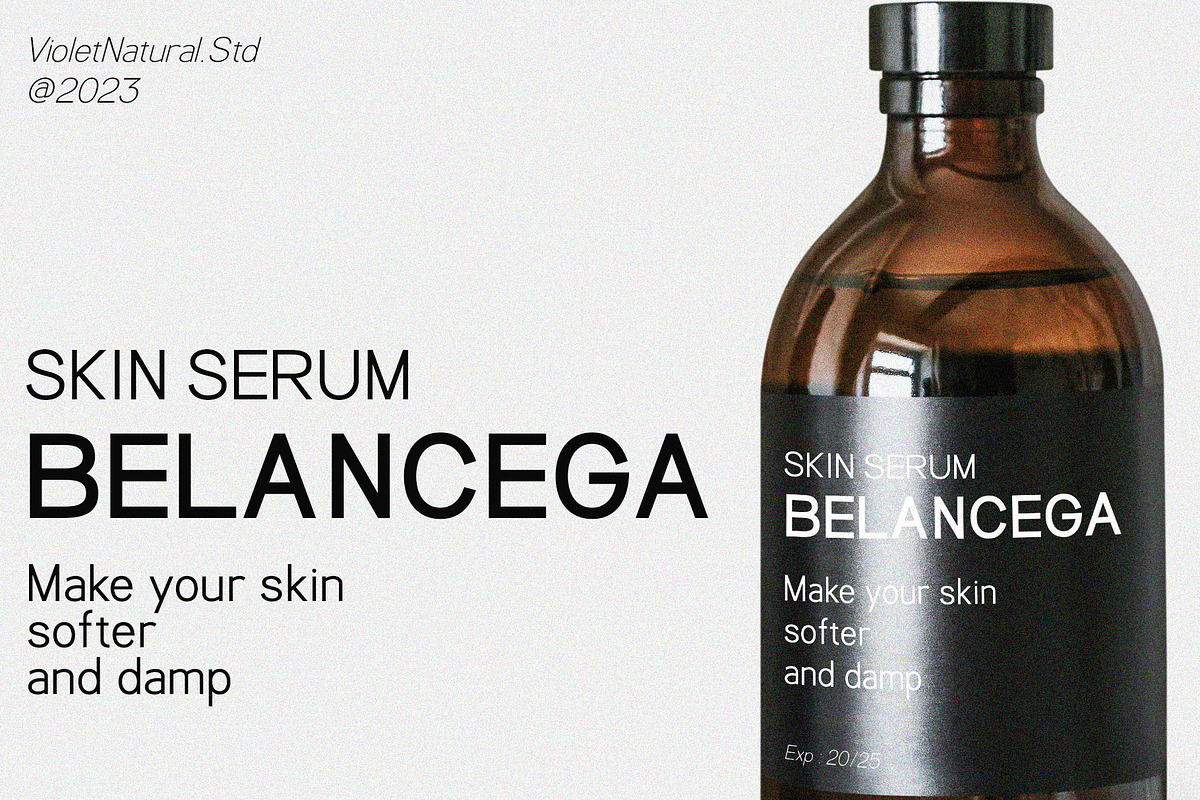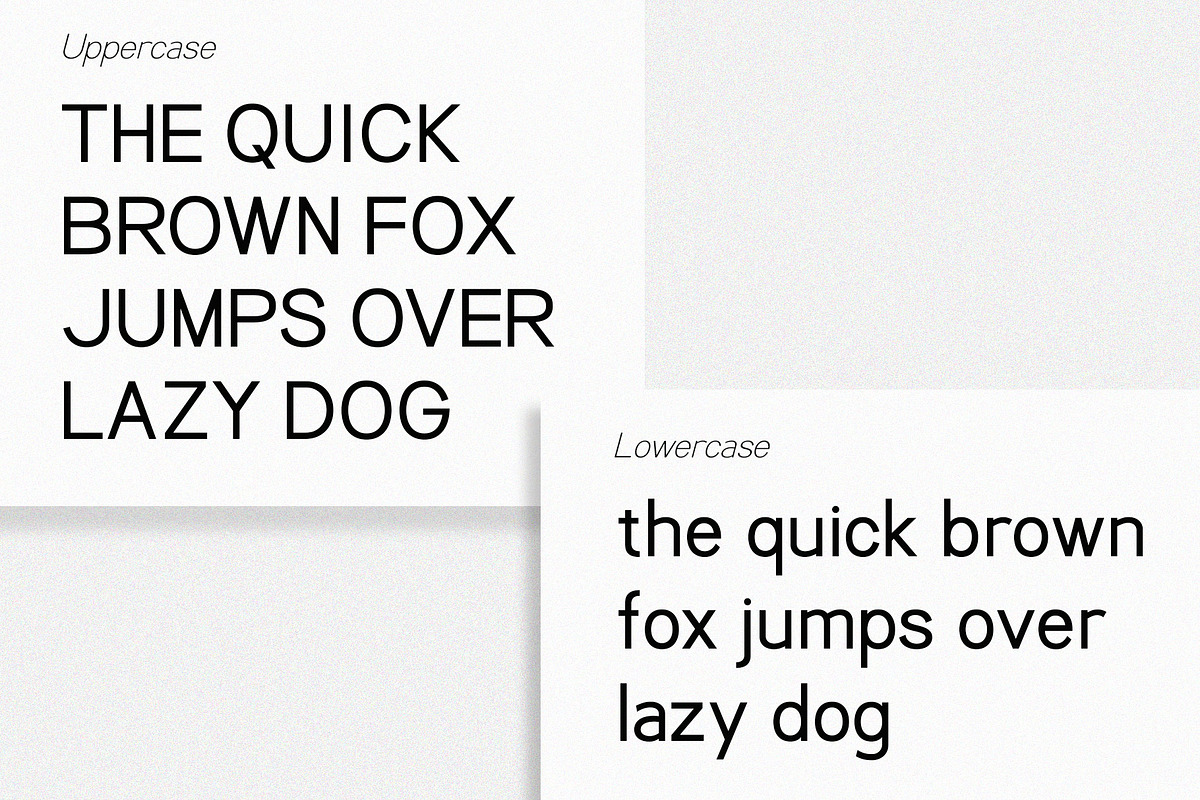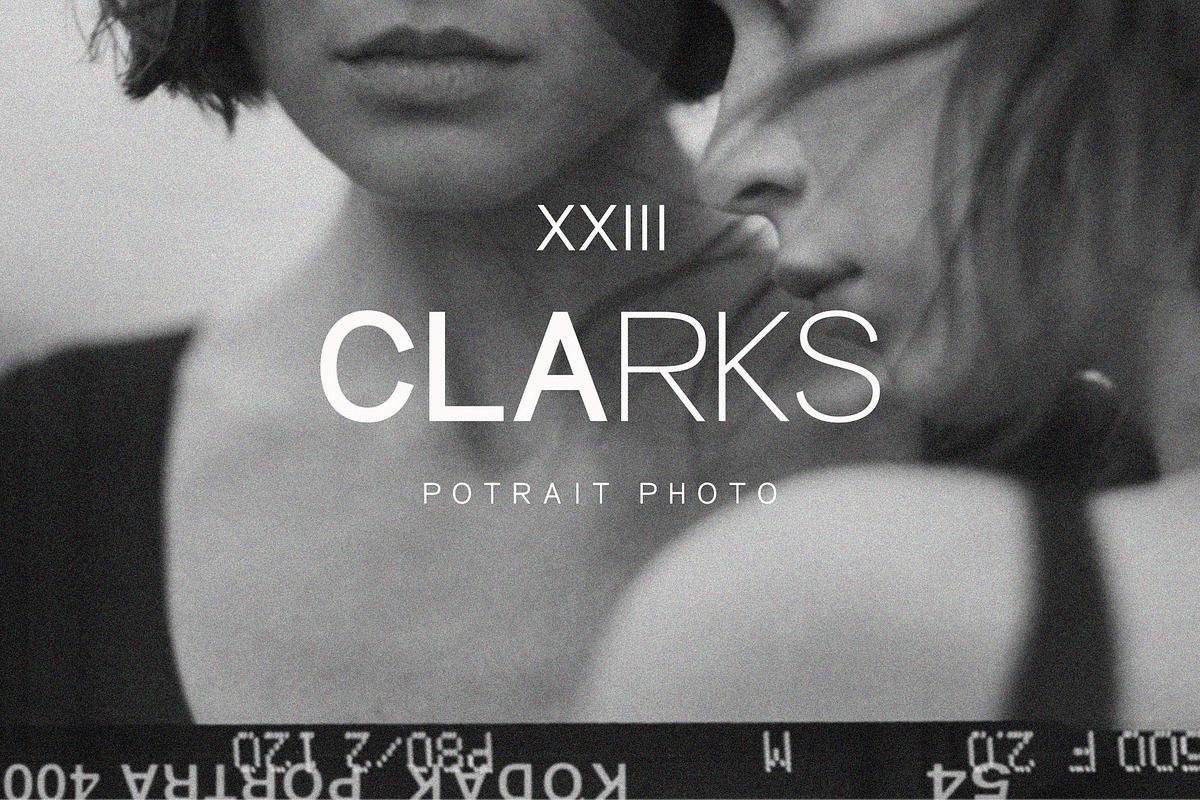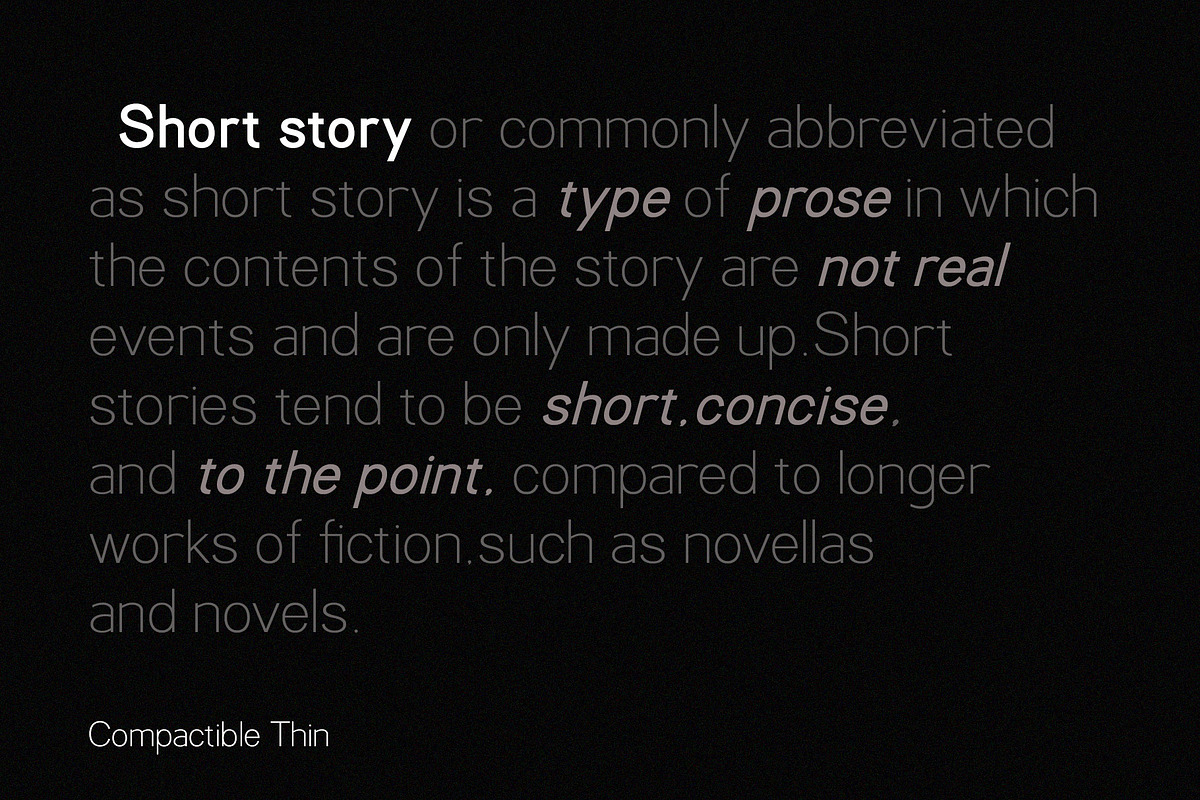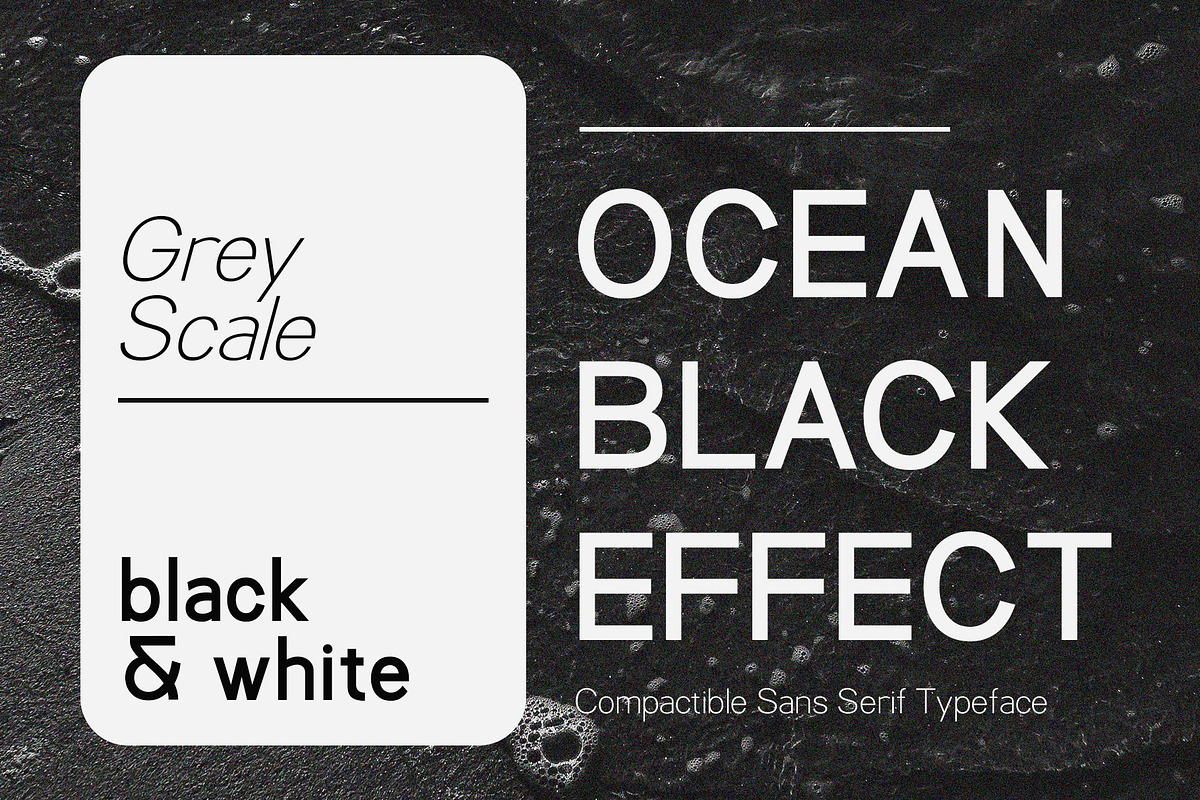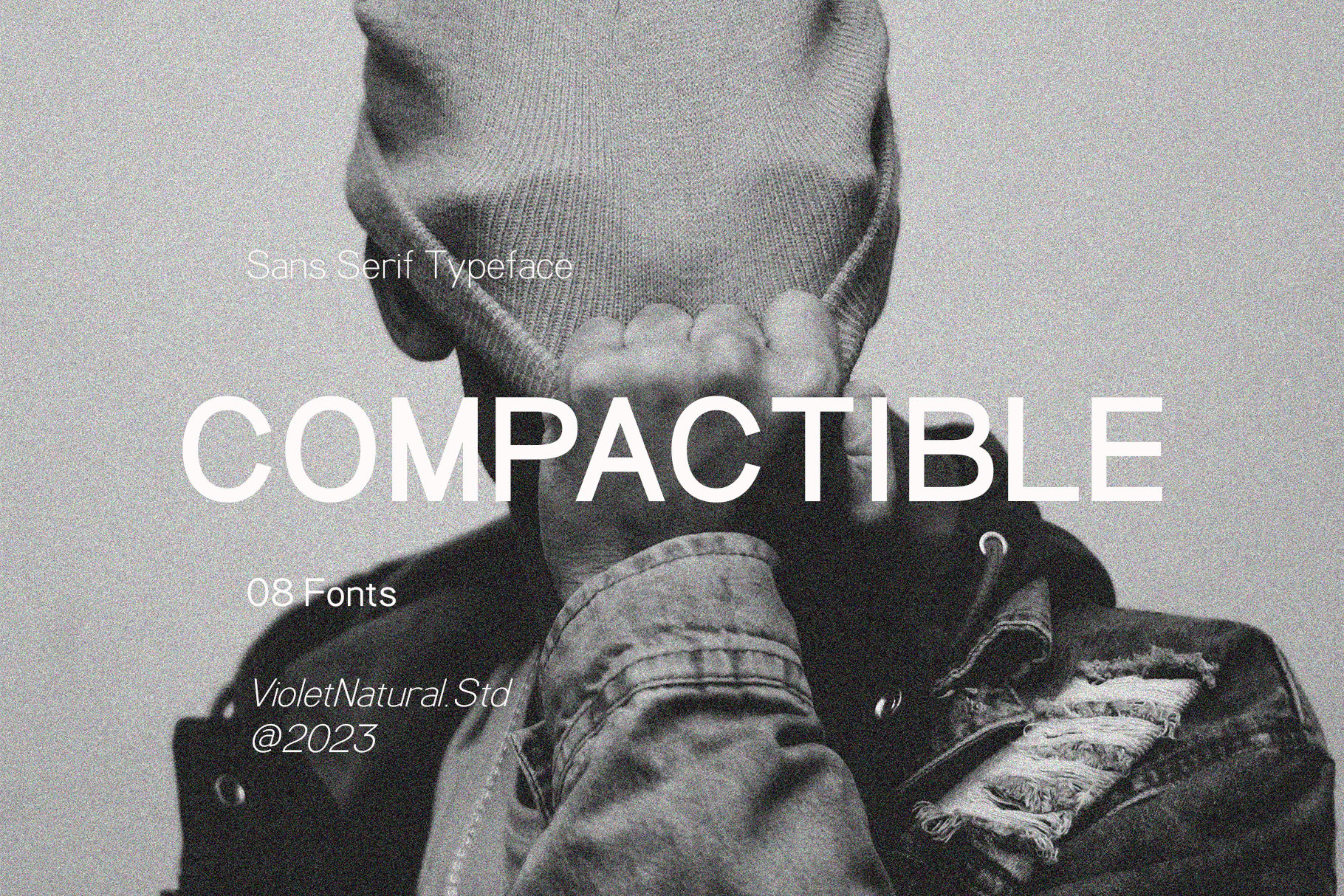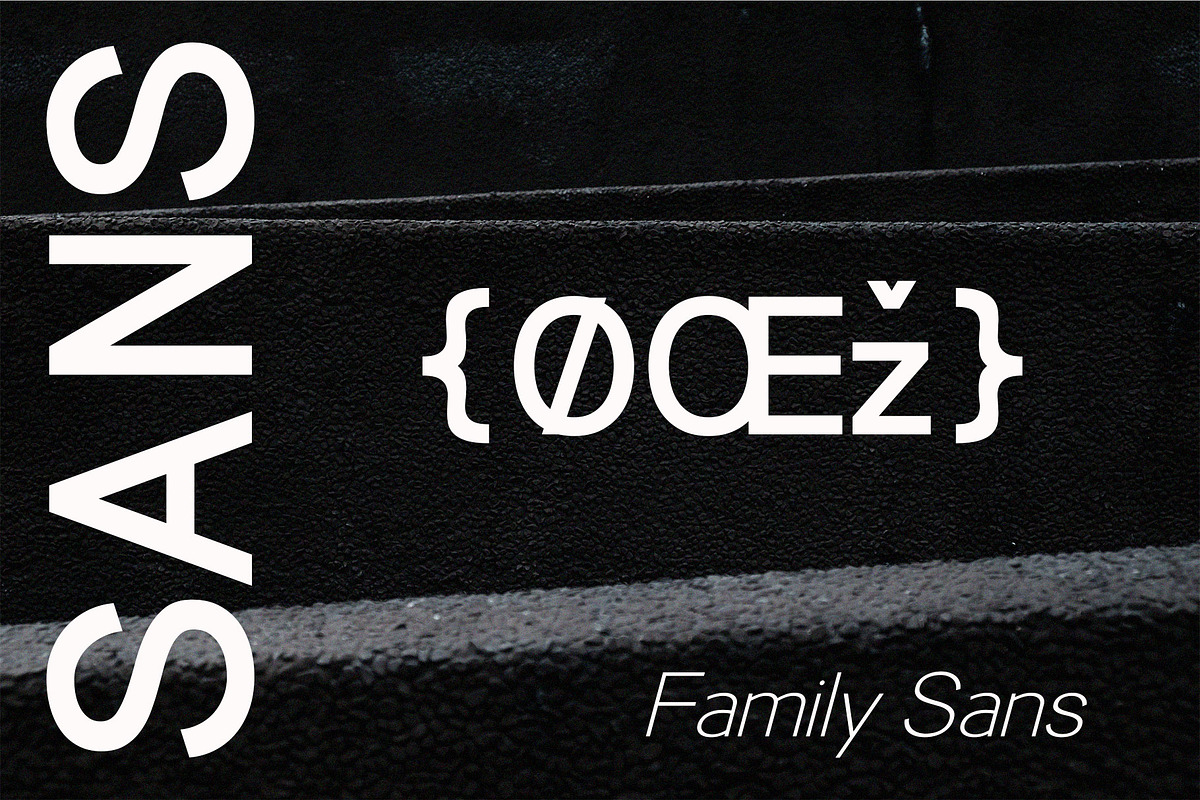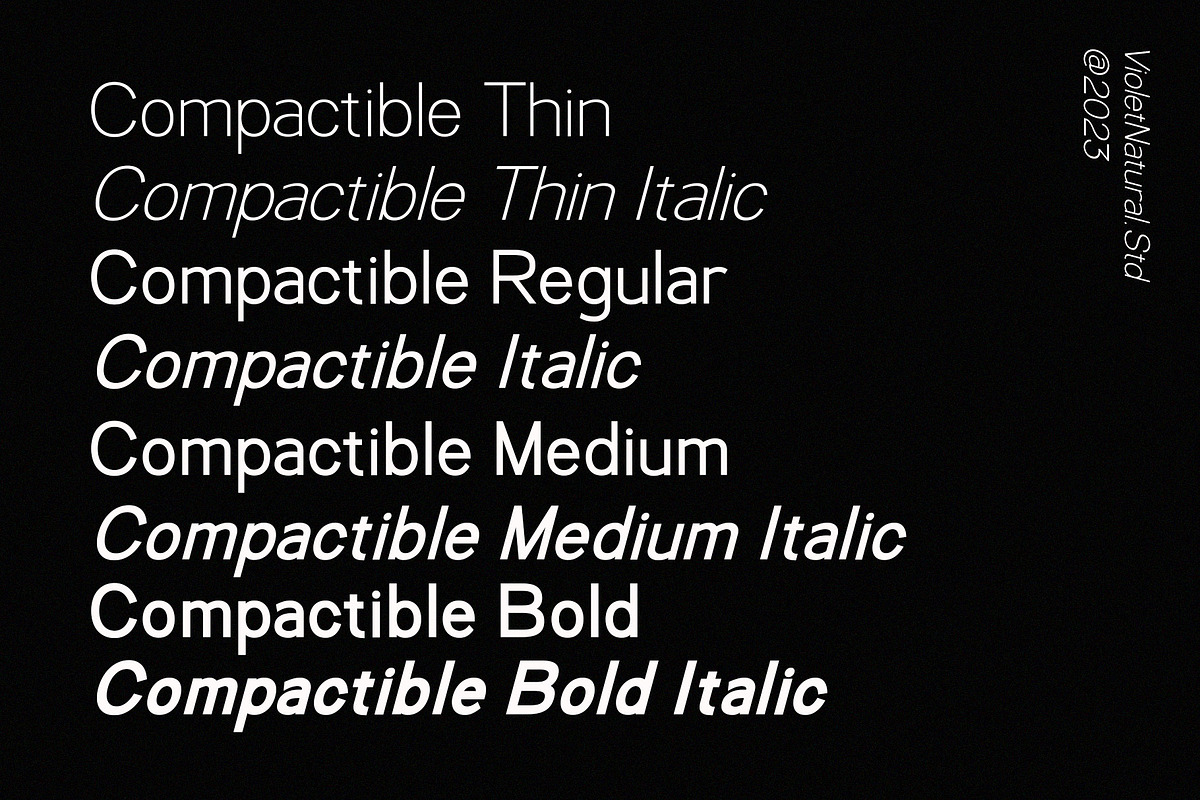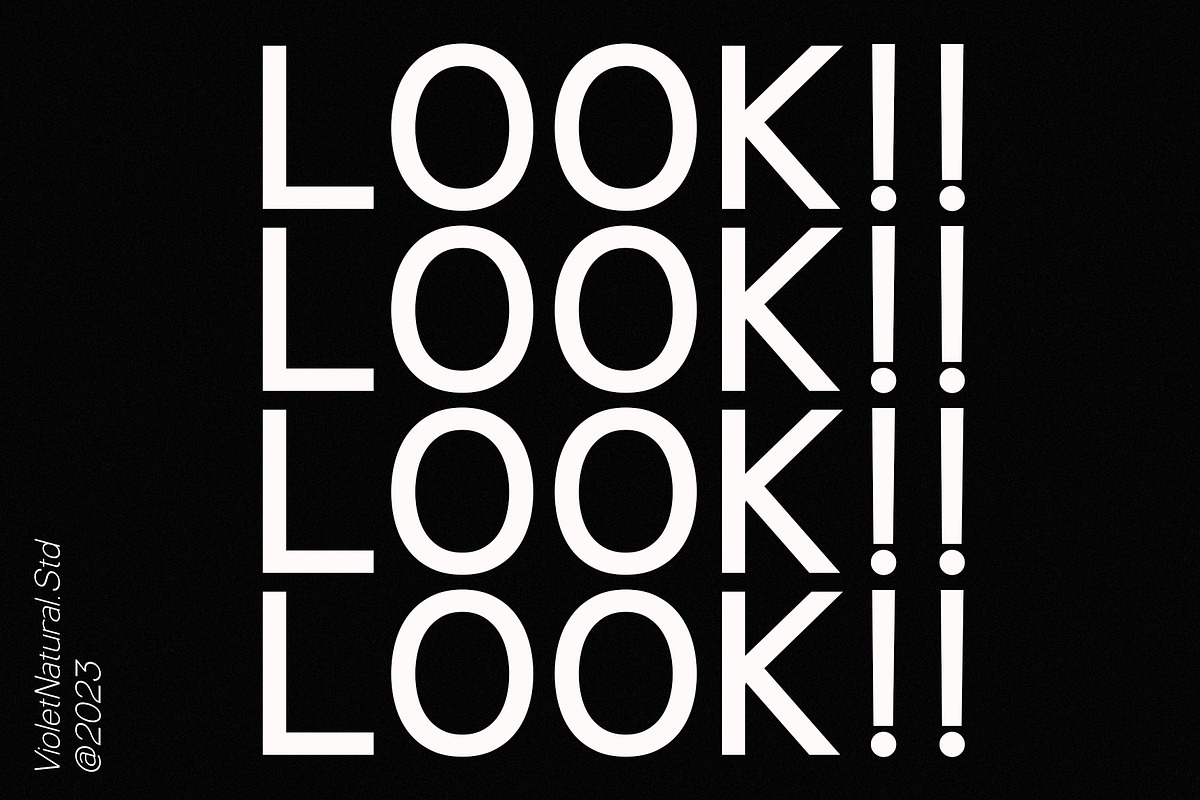
Compactible | Sans Typeface
helo this is my font with the name Compactible Family Sans which has a classic, modern and elegant style and uses family style in the letters. This font is suitable for application in various media, be it print or digital. you will get :